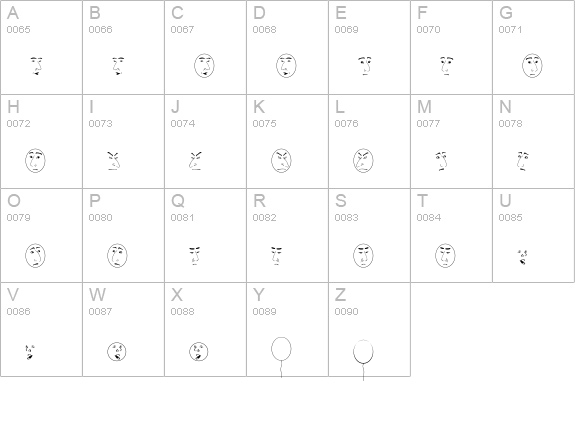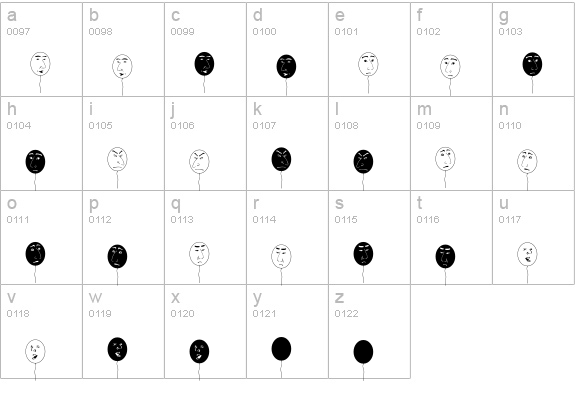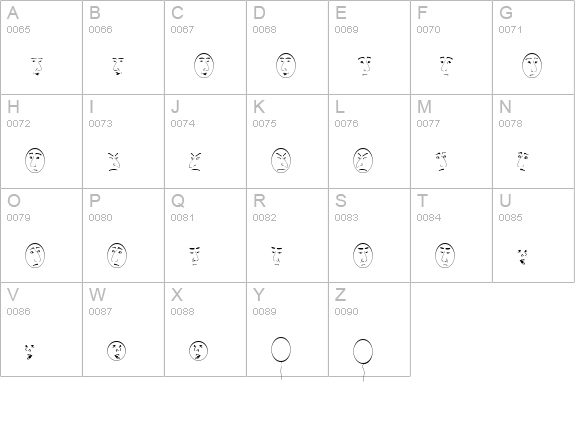
Introducing the whimsical and playful Balloon Man Font, a delightful typeface that brings a touch of fun and creativity to any project. This unique font features charming balloon-inspired letters that are sure to grab attention and add a cheerful vibe to your designs. Perfect for birthday invitations, party decorations, children's books, and more, Balloon Man Font is a versatile choice for anyone looking to add a touch of whimsy to their work. What makes Balloon Man Font even more appealing is that it is available for free download at FontsMarket.com. Yes, you read that right - this fantastic font can be yours at no cost, making it a perfect choice for budget-conscious designers looking for high-quality fonts. Don't miss out on the opportunity to enhance your projects with this charming and eye-catching typeface - download Balloon Man Font today and let your creativity soar!